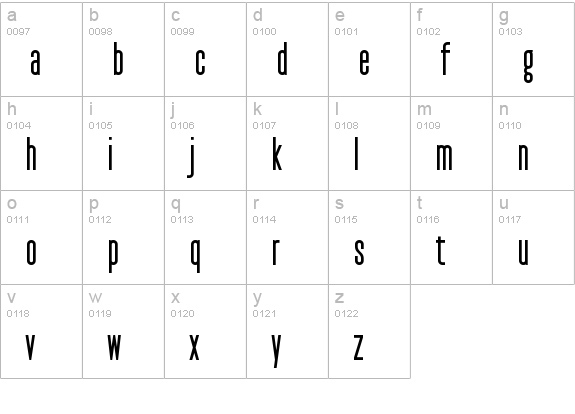
Pakt Condensed Bold is a strong, high-contrast, condensed-width variant in the Pakt typeface family \xE2\x80\x94 well suited to headlines, attention-grabbing titles, and strong calls-to-action.
Pakt Condensed Bold font is a stunning display typeface that exudes strength and professionalism. With its bold and condensed design, this font is perfect for creating eye-catching headlines, logos, and branding materials. The sturdy letterforms and clean lines make it highly readable even at smaller sizes. This versatile font offers a contemporary and modern aesthetic, making it suitable for a wide range of design projects. Whether you're designing for a corporate presentation or crafting a sleek and stylish website, Pakt Condensed Bold font will make a bold statement. In addition to its exceptional design qualities, Pakt Condensed Bold font is also available for free download at FontsMarket.com. This means you can easily access and utilize this impressive typeface without any cost. With just a few clicks, you can elevate your designs and give them a professional edge. Don't miss out on the opportunity to enhance your projects with Pakt Condensed Bold font. Download it today for free at FontsMarket.com and experience the power and versatility that this font has to offer.